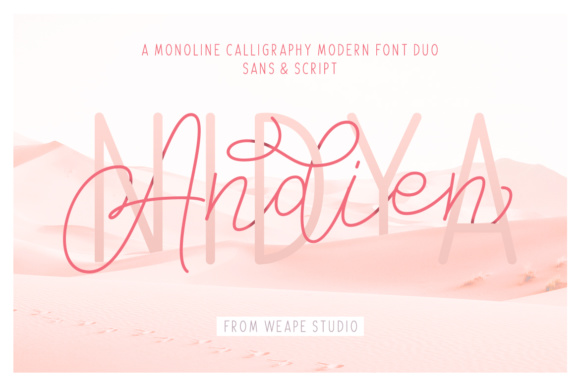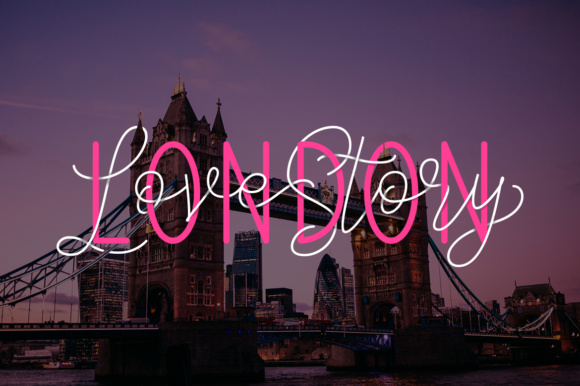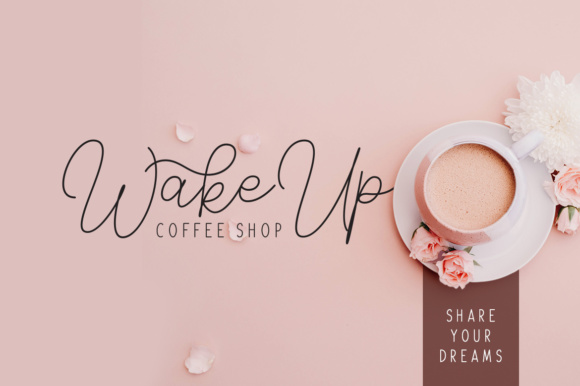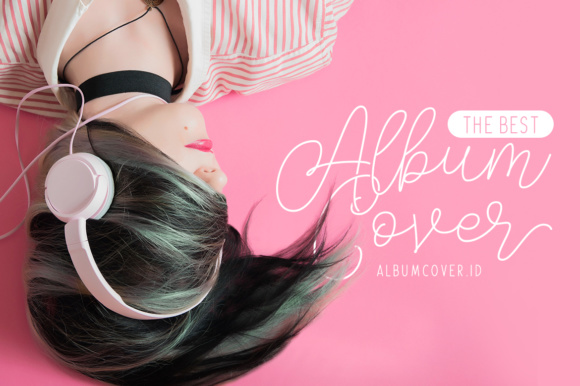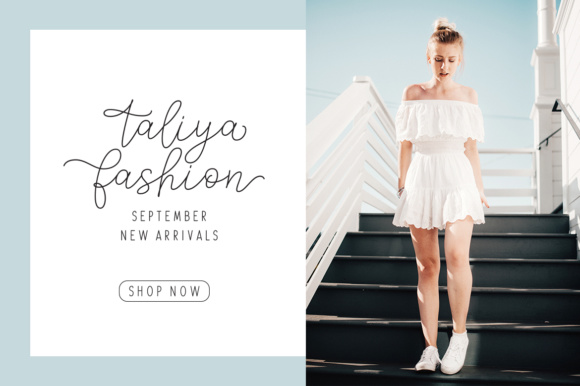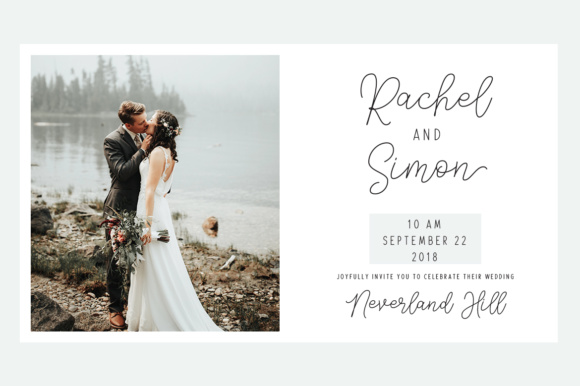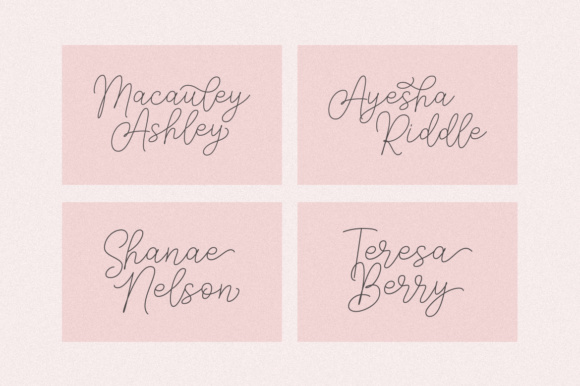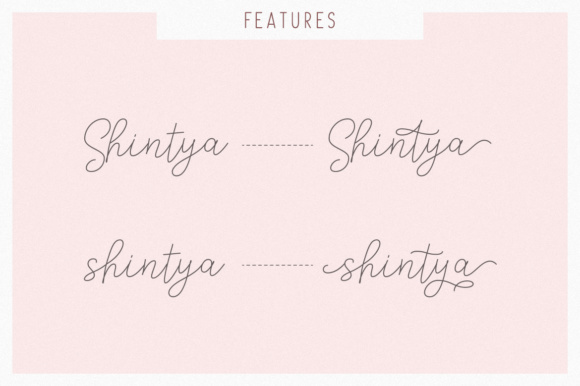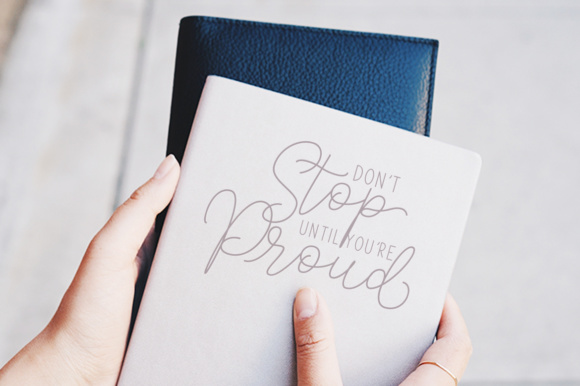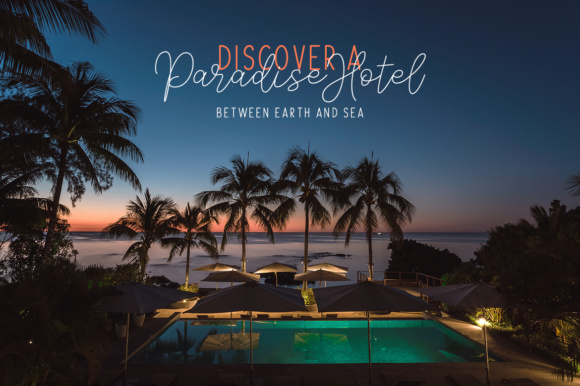
Andien Nidya Duo Font
The Andien Nidya is a monoline calligraphy font duo. It has a sophisticated monoline signature style and comes in a script and sans version. It’s perfect for adding a classy, modern touch to your projects.